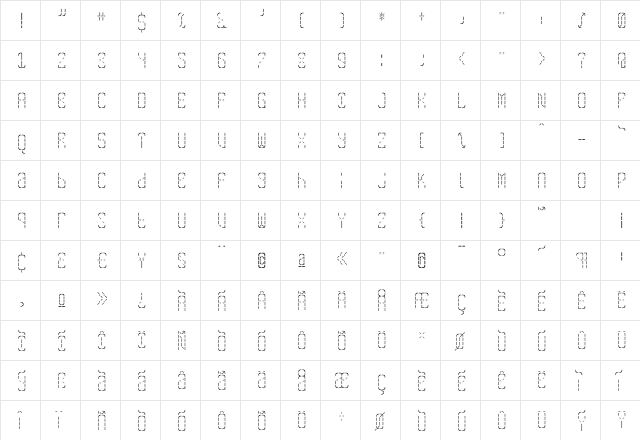
SkreanFine Regular Font Preview
SkreanFine Regular
SkreanFine Regular Font Details
Design Context for SkreanFine Typeface
SkreanFine takes a measured approach to typography — its balanced proportions and neutral character make it a reliable workhorse for both digital and print work.